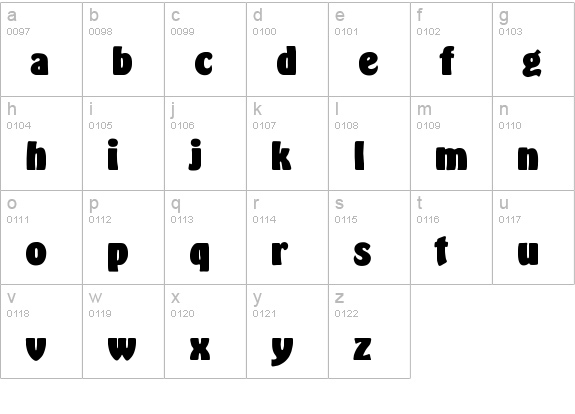
HoboExtraBold Font Details
Introducing HoboExtraBold font, a bold and eye-catching typeface that demands attention with its strong and impactful design. This font is perfect for making a statement and standing out in any project. With its thick strokes and unique character shapes, HoboExtraBold exudes confidence and modernity. The best part? HoboExtraBold is completely free to download at FontsMarket.com, allowing you to easily access this powerful font for all your creative endeavors. Whether you're designing a poster, logo, or branding materials, HoboExtraBold is sure to make a lasting impression. Embrace the boldness and versatility of HoboExtraBold font today and take your designs to the next level.